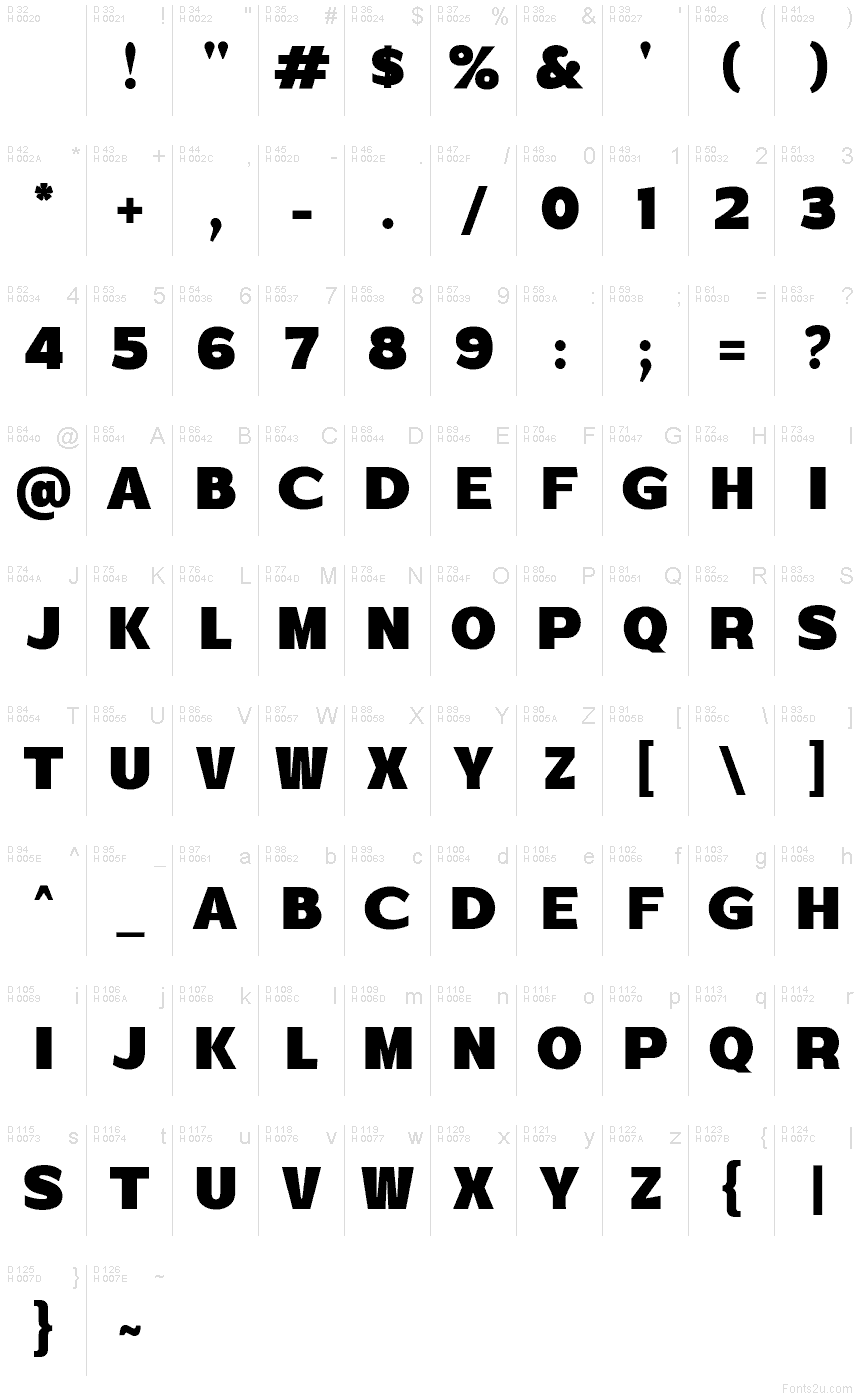
Work News
Work News font by Graphicxell is a free bold sans serif display font that solves the “I need big impact in a tight space” problem. Its monoline strokes, squared shoulders, and compact width deliver dense, ink-heavy headlines without feeling cramped. The rhythm is steady and vertical, with crisp cuts and tight spacing that stack cleanly and read loud from afar.
Using Work News, you can punch up posters, thumbnails, banners, promo graphics, packaging, and sports branding. This free font shines on short words and strong calls to action, where its weight turns into pure presence. For balance, pair it with a light, neutral text sans and add a touch of tracking at large sizes to let those heavy forms breathe.